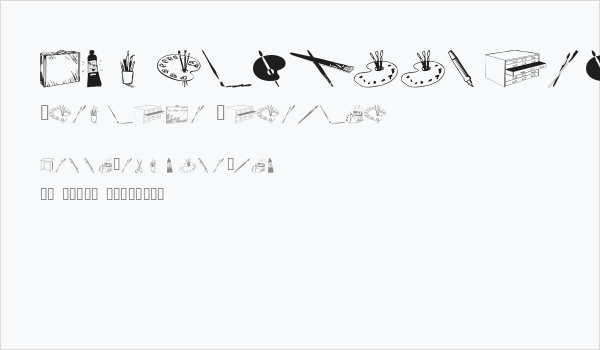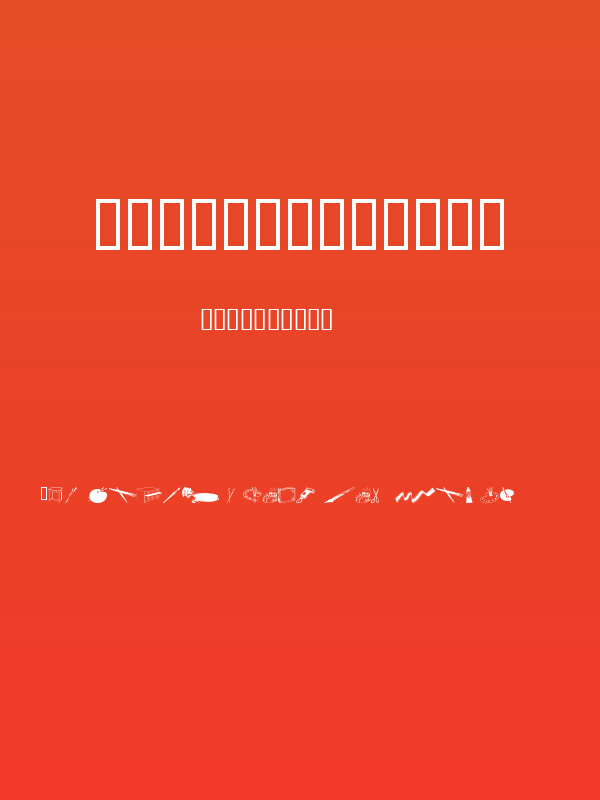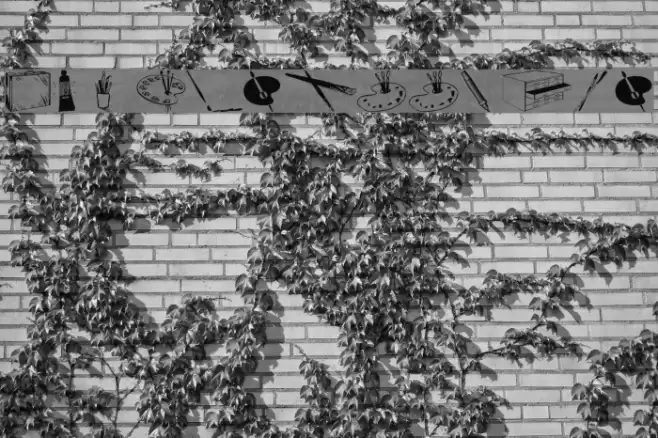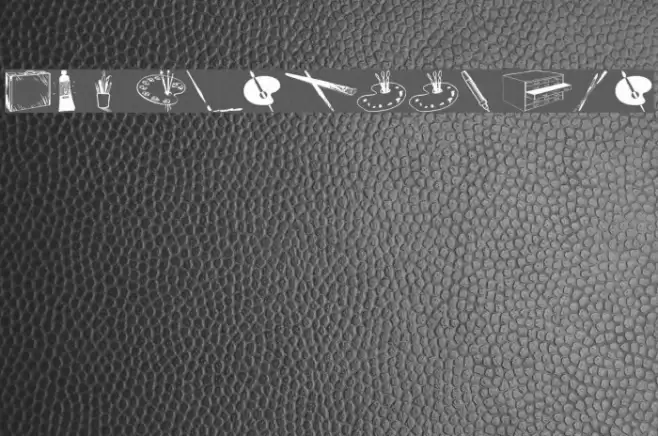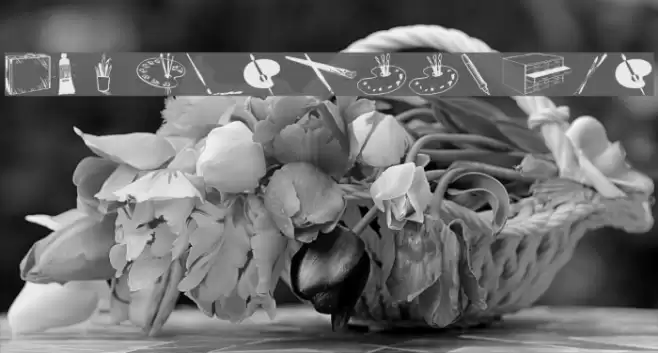
wmartsupplies Font
wmartsupplies Description
A decorative dingbat font featuring hand-drawn illustrations of various art supplies and tools, such as brushes, palettes, easels, and rulers, each corresponding to a different character.
| Overall Style | Decorative, Sketchy, Playful |
| Use Case | Icons, Decorative elements, Themed graphics |
| Proposed Projects | Art class posters, creative workshop flyers, educational materials, scrapbooking, and themed invitations. |